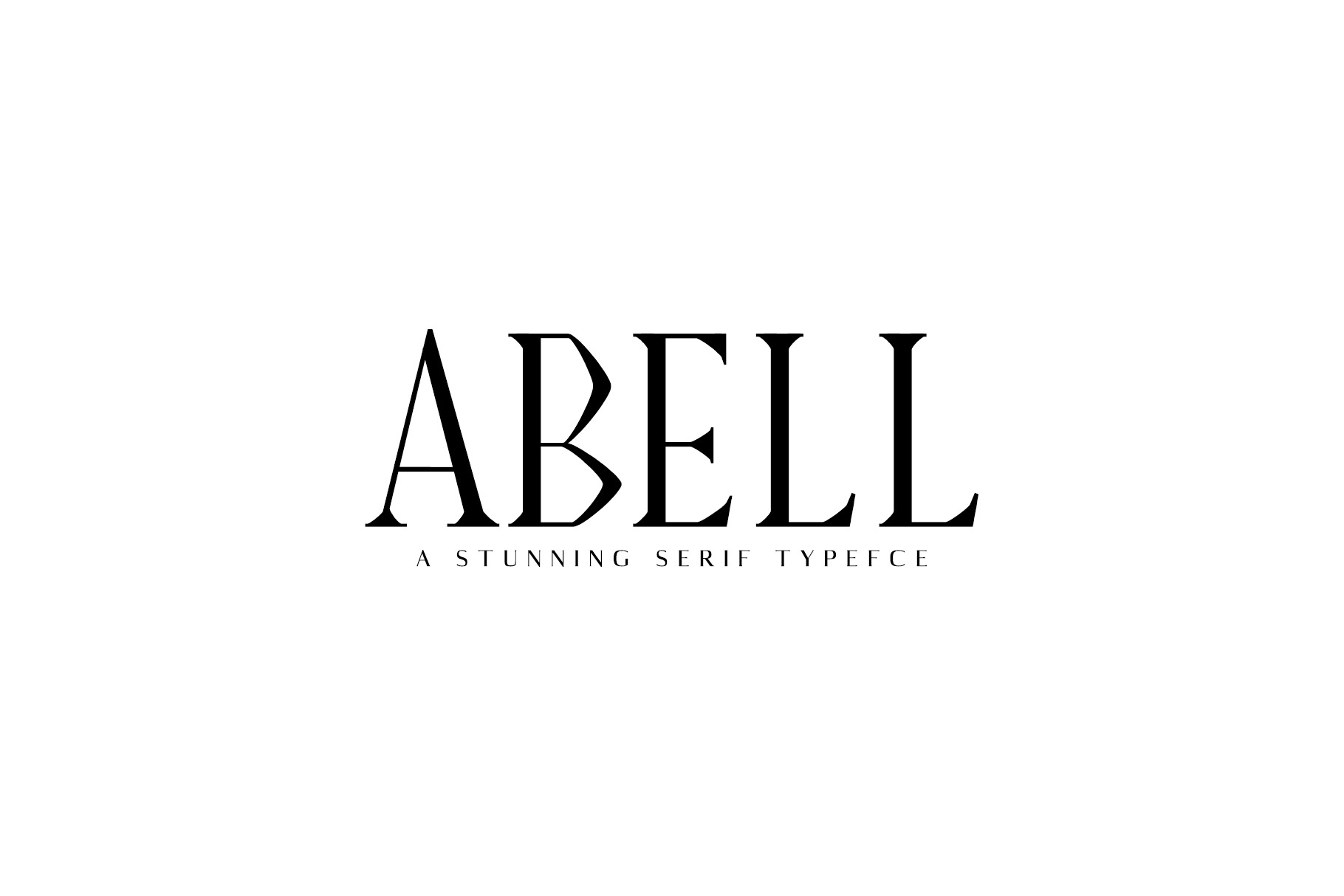
Abell Serif 6 Font Family Pack
Abell Serif Font comes with little art-deco touch. It consists of 5 different weights. This lovely and unique serif font, allowing you to make each word look completely stylish. It pairs well with both script and sans-serif fonts and you can create unlimited looks. Abell suits best for modern designs, headlines, banners & templates, titles, magazines headings, logo's, presentations, posters, name card, web layouts, invitations, books, branding, and nearly any creative design.
Abell Font Features:
- Font Weight: Regular, Light, Thin, Thin Italic, Medium and Black
- Uppercase Multilingual Letters
- Lowercase Multilingual Letters
- Non English Characters ( Latin Extended A )